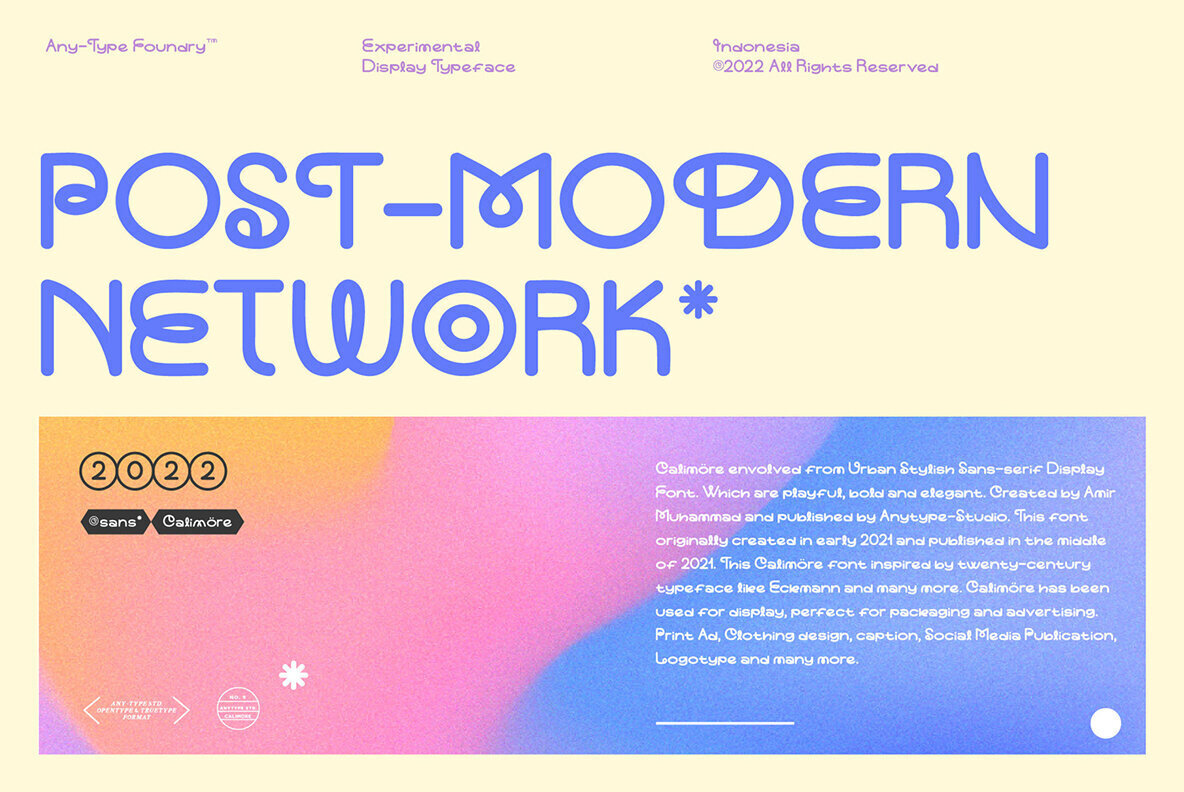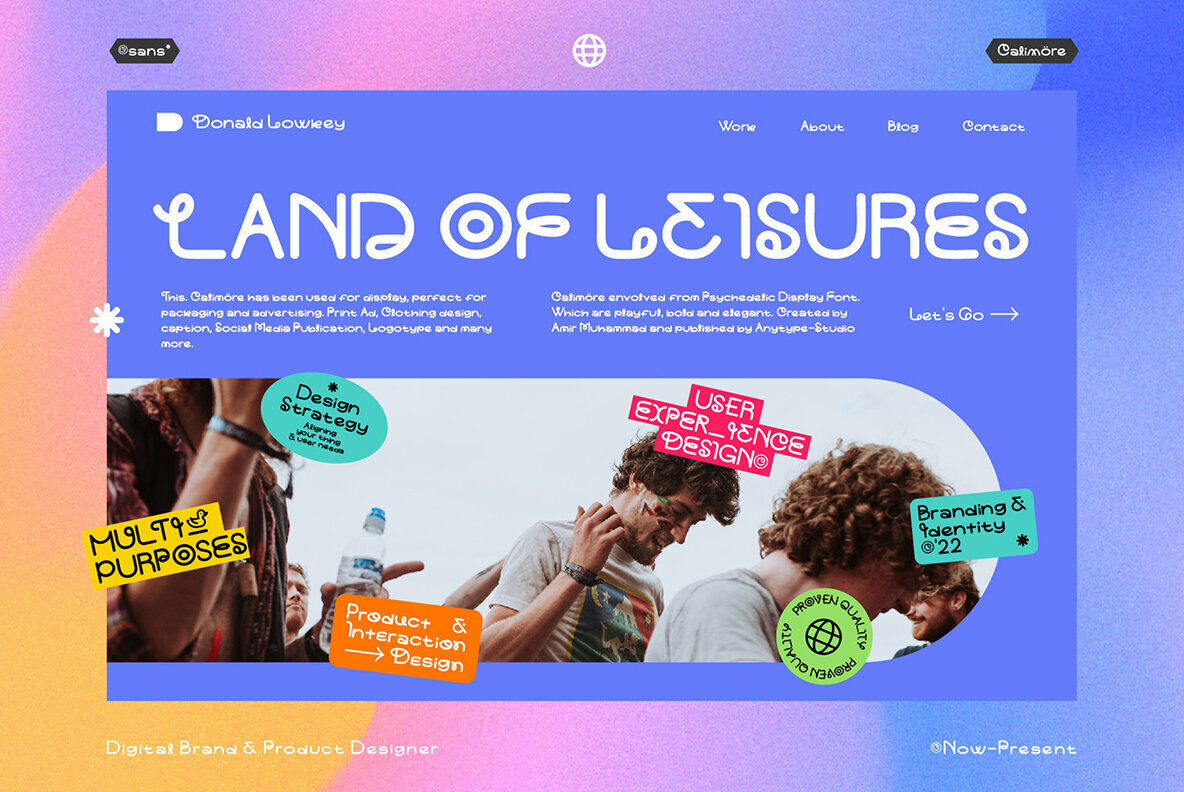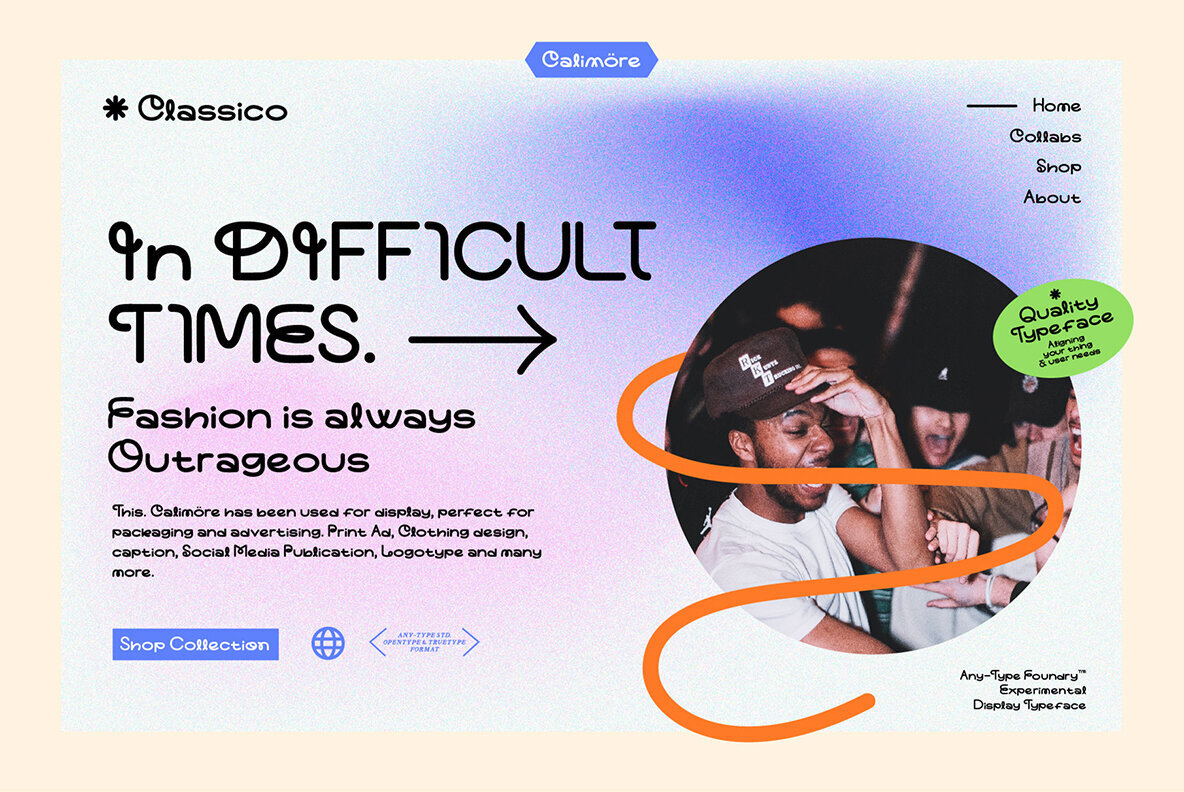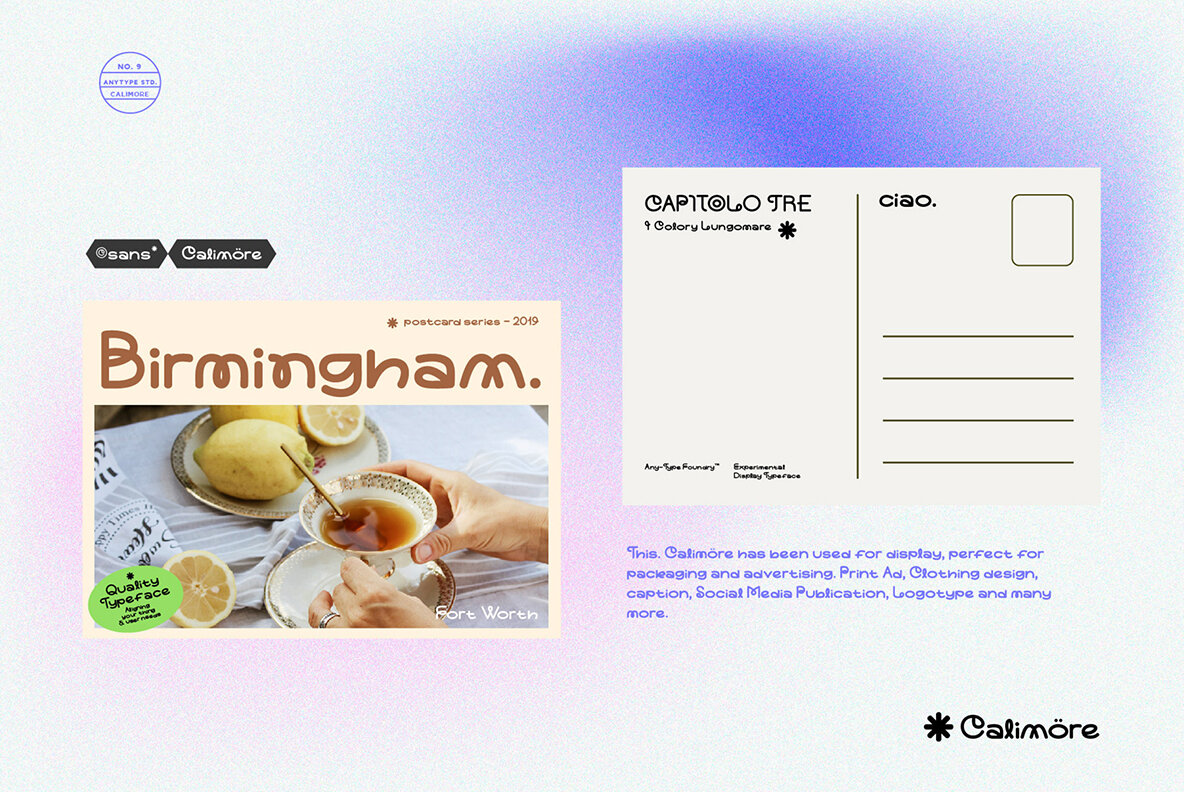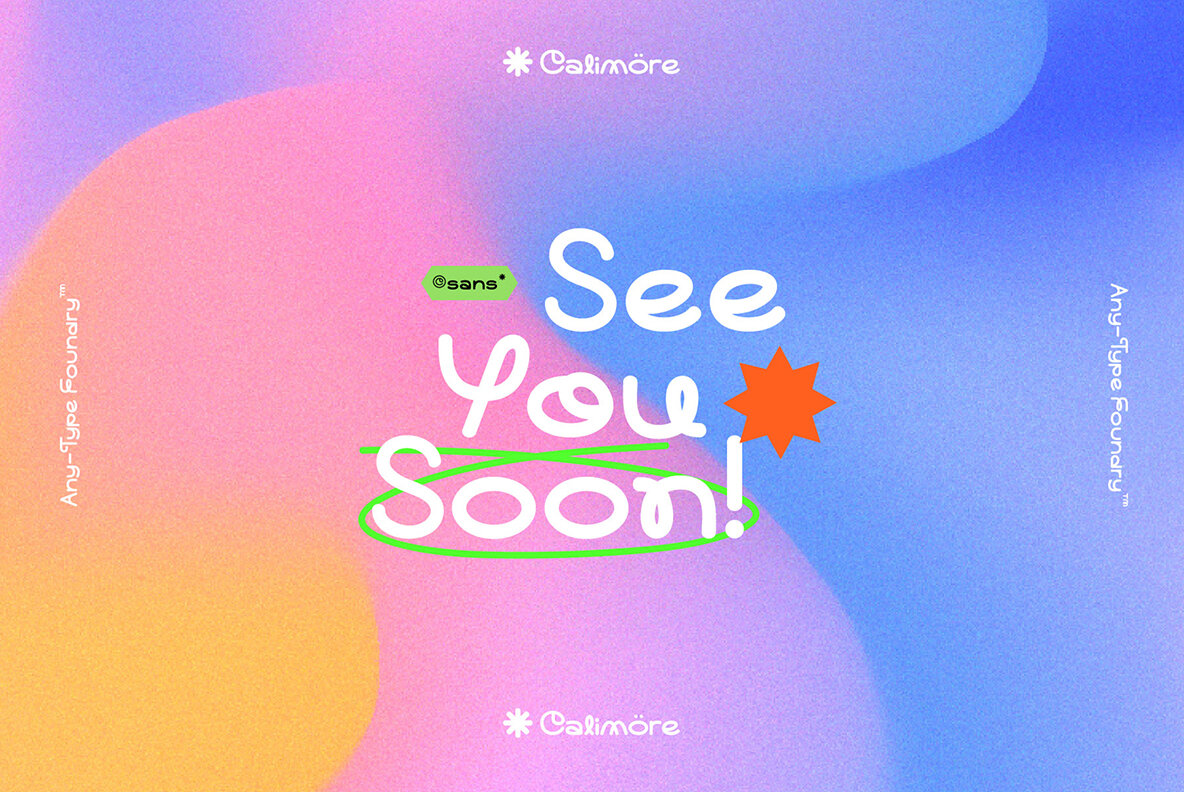
Calimore Font
Calimore, crafted by Any-Type Foundry and brought to life by designer Amir Muhammad, is a rounded sans serif font that balances playfulness with bold elegance. Ideal for diverse applications, Calimore shines in print ads, packaging, social media publications, and more. Its versatile nature makes it a fitting choice for logotypes, clothing design, and artistic captions.Calimore: A Playful Yet Elegant Sans Serif